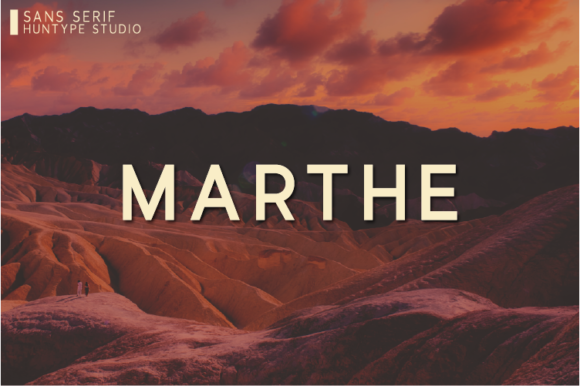
Immerse yourself in the exquisite elegance of Marthe Font, a mesmerizing sans serif creation by Huntype, meticulously designed to elevate your creative expression to new heights. With its clean lines, balanced proportions, and understated sophistication, Marthe Font is the embodiment of understated luxury, making it the perfect choice for those who seek fonts with a touch of timeless charm.
Unleash your creativity with this versatile font family, featuring a range of weights from light to bold, providing endless possibilities for customization. Whether you're crafting captivating logos, designing stunning websites, or creating heartfelt invitations, Marthe Font seamlessly adapts to your vision, effortlessly enhancing the visual appeal of your projects.
Imagine your words, transformed into exquisite art, as they dance across the page, adorned with the graceful curves and sharp angles of Marthe Font. Let your designs radiate a sense of sophistication and elegance, captivating your audience with their refined beauty.
With Marthe Font as your creative companion, you'll find yourself effortlessly crafting designs that resonate with your audience, leaving a lasting impression that speaks volumes about your attention to detail and impeccable taste. Embrace the allure of Marthe Font and witness the transformation of your creative ideas into masterpieces that captivate and inspire.